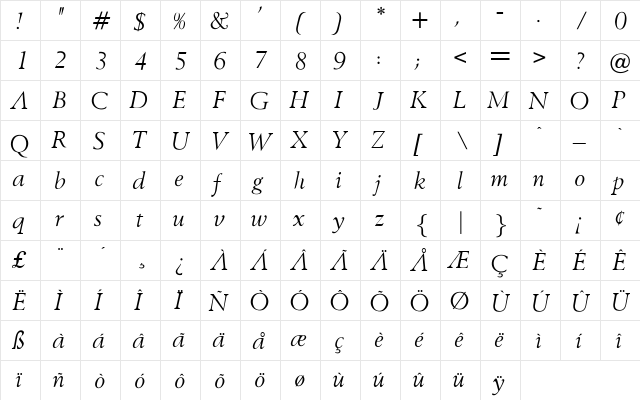
OPTIBerling Medium
Design Context for OPTIBerling Typeface
OPTIBerling offers clean, dependable letterforms without strong stylistic allegiance, making it a practical choice for designers who need flexibility.